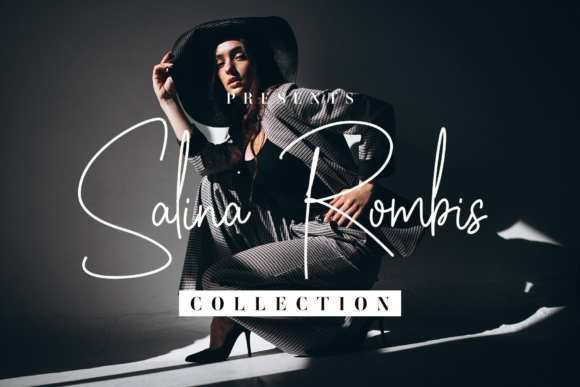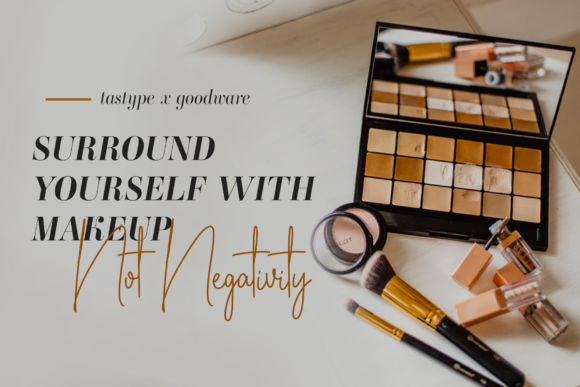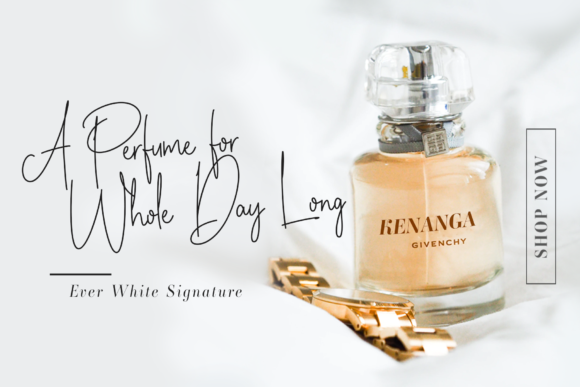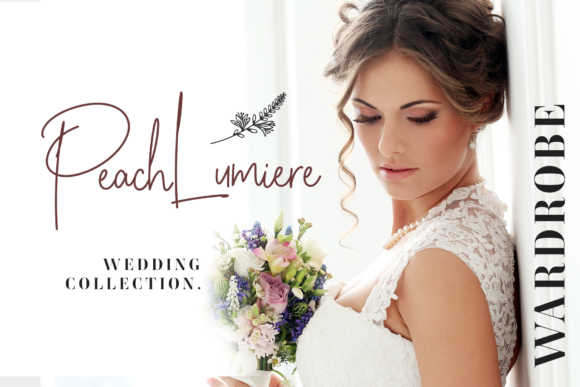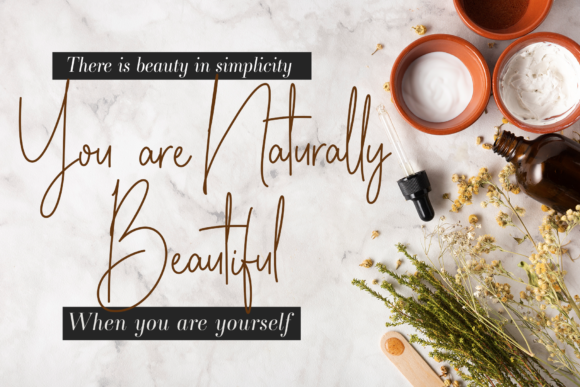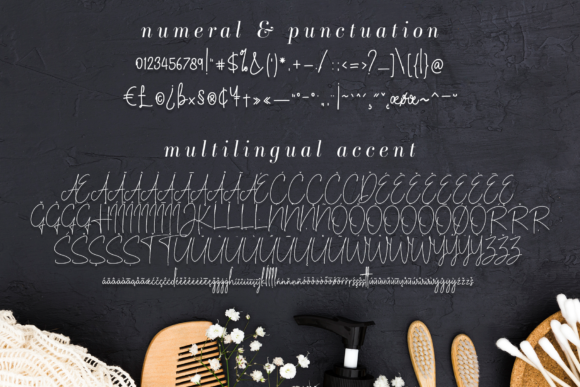
Introducing Ever White Font: Elevate Your Designs with Elegance and Friendliness
Are you a designer or crafter looking for a font that exudes classic sophistication while still conveying a sense of approachability? Look no further than Ever White Font, an elegant monoline script font that is sure to take your designs to the next level. In this article, we’ll dive into the features and benefits of Ever White, and explore how it can help you create original and outstanding designs that capture your audience’s attention.
The Classic Style of Ever White Font
Ever White Font boasts an incredibly classic style that is reminiscent of traditional calligraphy. Its monoline script design features smooth, flowing lines that give it a timeless and sophisticated look. The font’s elegant appearance makes it perfect for designs that require a touch of luxury, such as branding, packaging, and advertising materials. However, what sets Ever White apart from other classic fonts is its friendly feel, which makes it accessible to a wider audience.
Key Features of Ever White Font
- Elegant Monoline Script Design: Ever White’s monoline script design gives it a sleek and sophisticated appearance that is perfect for high-end designs.
- Classic Style: The font’s classic style ensures that it will remain timeless and relevant for years to come.
- Friendly Feel: Despite its classic appearance, Ever White has a friendly feel that makes it approachable and relatable.
- Versatile: Ever White is a versatile font that can be used for a wide range of designs, from branding and packaging to advertising and digital media.
Benefits of Using Ever White Font
So, why should you choose Ever White Font for your designs? Here are just a few benefits of using this elegant font:
- Create Original Designs: With Ever White, you can create original and outstanding designs that set you apart from the competition.
- Convey a Sense of Luxury: The font’s classic style and elegant appearance make it perfect for designs that require a touch of luxury.
- Connect with Your Audience: Ever White’s friendly feel helps to create a connection with your audience, making your designs more approachable and relatable.
- Save Time: With Ever White, you can create professional-looking designs in no time, thanks to its easy-to-use and versatile design.
How to Use Ever White Font in Your Designs
Ever White Font is easy to use and can be incorporated into a wide range of designs. Here are a few ideas to get you started:
- Branding and Logo Design: Use Ever White to create a luxurious and sophisticated brand identity that sets you apart from the competition.
- Packaging Design: Add a touch of elegance to your packaging designs with Ever White, perfect for high-end products and luxury brands.
- Advertising and Marketing Materials: Use Ever White to create eye-catching advertising and marketing materials that capture your audience’s attention.
- Digital Media: Incorporate Ever White into your digital media designs, such as social media graphics, blog posts, and website headers.
In conclusion, Ever White Font is an elegant monoline script font that offers a unique combination of classic style and friendly feel. With its versatile design and wide range of uses, Ever White is the perfect font for designers and crafters looking to create original and outstanding designs. Whether you’re looking to convey a sense of luxury, connect with your audience, or simply create a professional-looking design, Ever White Font is the perfect choice.